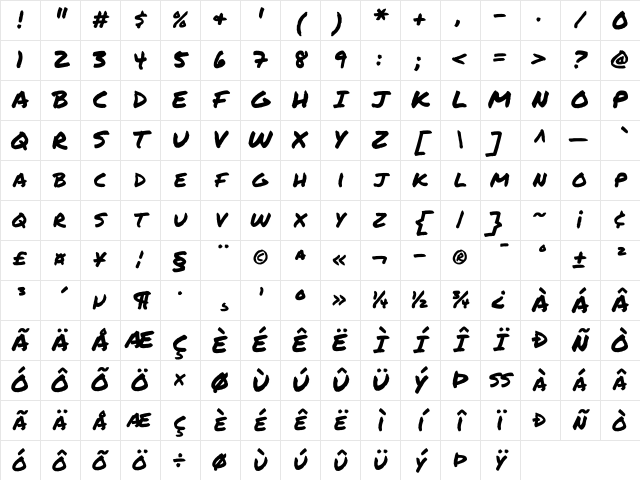
Permanent Marker Regular
Foundry: Font Diner, Inc
Designer: Font Diner, Inc
Complete Permanent Marker Regular glyph index. Displaying only characters natively supported by Permanent Marker Regular font.
Design Context for Permanent Marker
Permanent Marker is a composed and adaptable typeface that performs quietly and consistently across a wide range of design contexts.